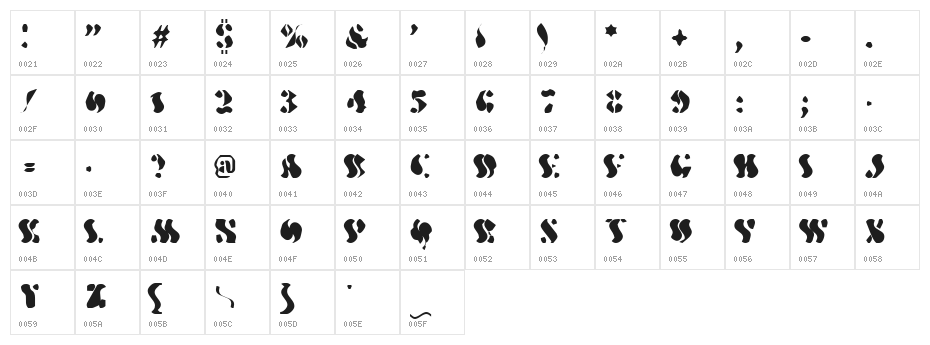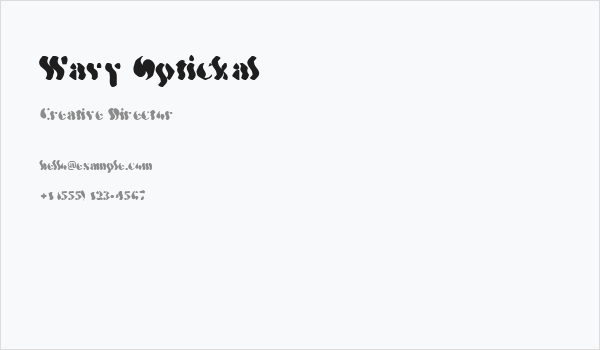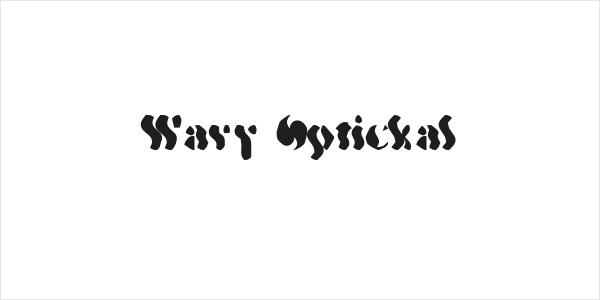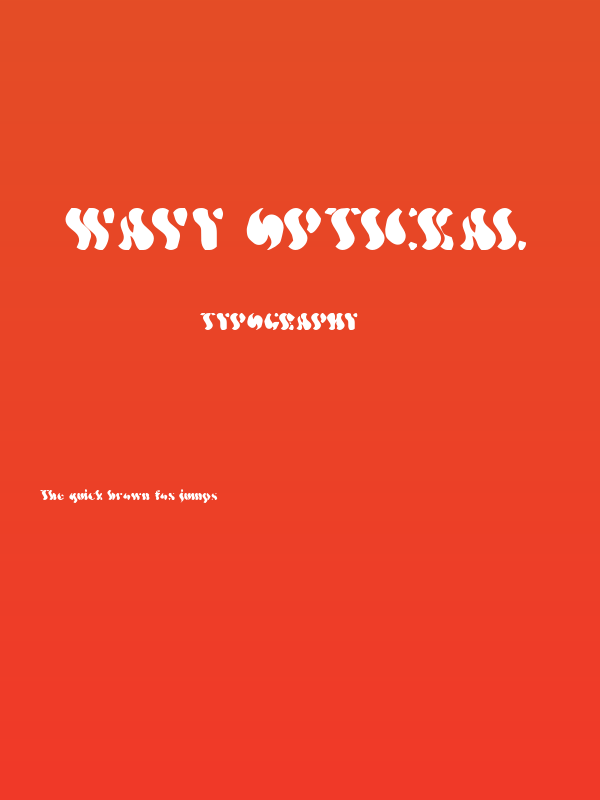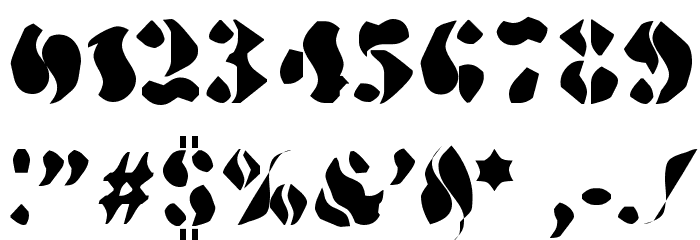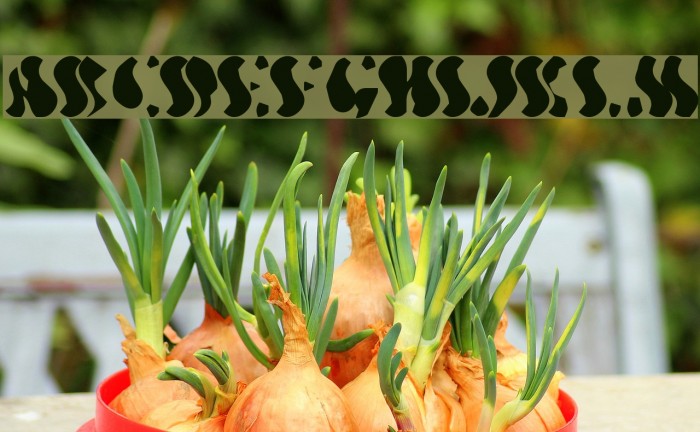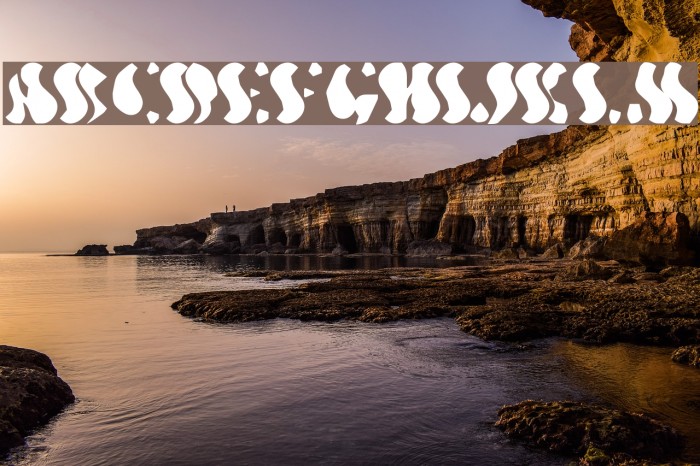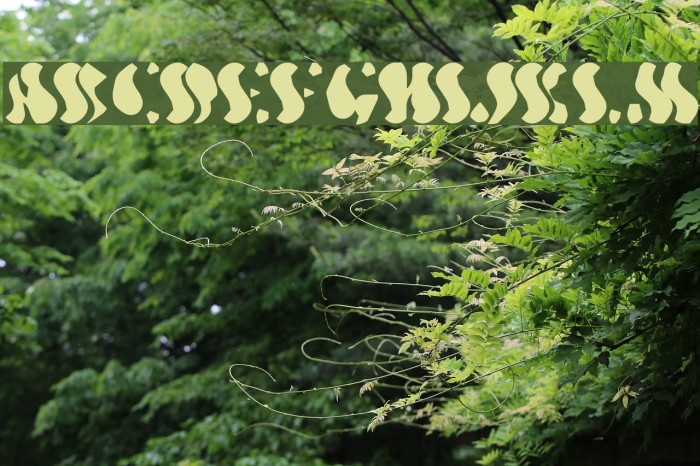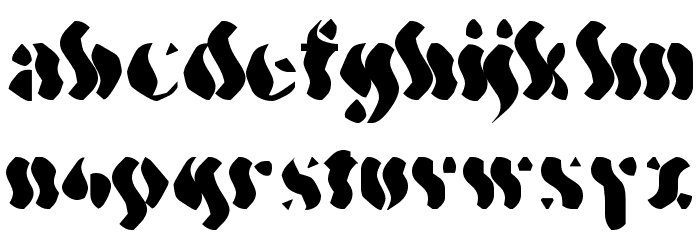
Wavy Optickal Font
Wavy Optickal Description
This font features a unique and abstract design, characterized by its wavy and optical illusion-like appearance. The letters are bold and have a high contrast between thick and thin strokes, creating a dynamic and eye-catching effect. The characters are distorted in a way that gives them a sense of movement and fluidity, making them stand out in any design. The font's style is highly decorative and artistic, suitable for projects that require a bold statement or a creative touch. Its unconventional shapes may challenge readability at smaller sizes, but they excel in larger displays where the intricate details can be appreciated.
| Proposed Projects | Ideal for posters, album covers, branding for creative industries, and any project that benefits from a bold, artistic statement. |